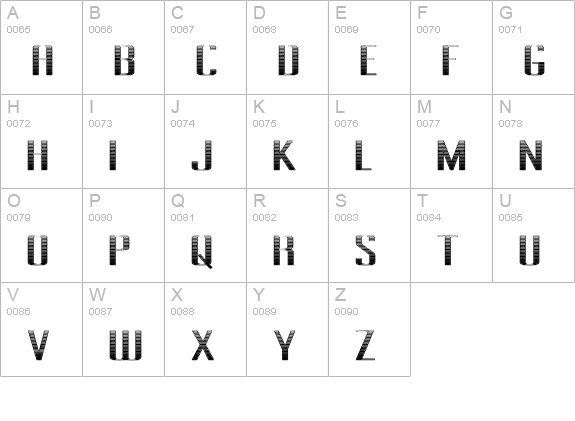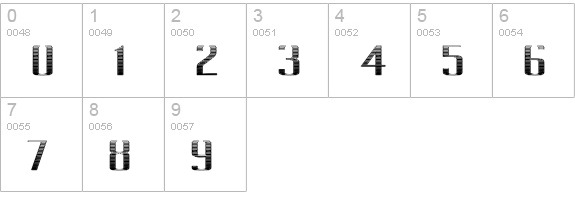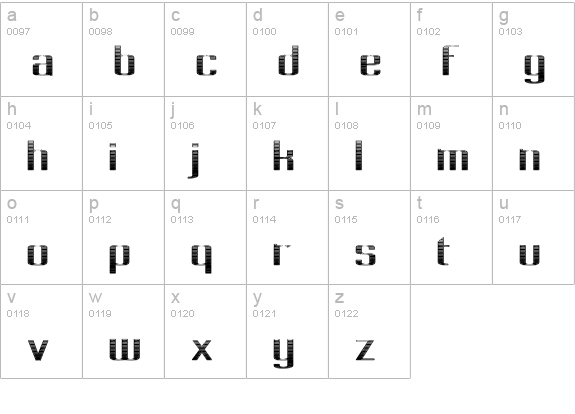
Pecot Lined Jewel font is a stunning and elegant typeface that exudes a sense of sophistication and luxury. Its intricate and delicate lines make it perfect for adding a touch of glamour and refinement to any design project. With its unique and eye-catching letterforms, Pecot Lined Jewel font is sure to captivate and mesmerize your audience. Each letter is meticulously crafted, with intricate details that enhance its visual appeal. The thin lines and curves give it a graceful and refined appearance, making it the perfect choice for high-end branding, invitations, and editorial designs. What sets Pecot Lined Jewel font apart is that it is freely available to download at FontsMarket.com. This means that you can add a touch of elegance to your project without having to worry about any additional costs. Whether you are a professional designer or a hobbyist, this font is a valuable addition to your creative toolkit. The versatility of Pecot Lined Jewel font allows it to be used in a variety of design projects. From wedding invitations to magazine layouts, this font will elevate your designs and make them stand out from the crowd. Its timeless and classic aesthetic makes it suitable for both modern and traditional designs. To summarize, Pecot Lined Jewel font is a visually stunning and elegant typeface that adds a touch of sophistication to any design project. With its freely available download option at FontsMarket.com, you have the opportunity to enhance your designs without any additional cost. So go ahead and download Pecot Lined Jewel font today to elevate your designs and leave a lasting impression.